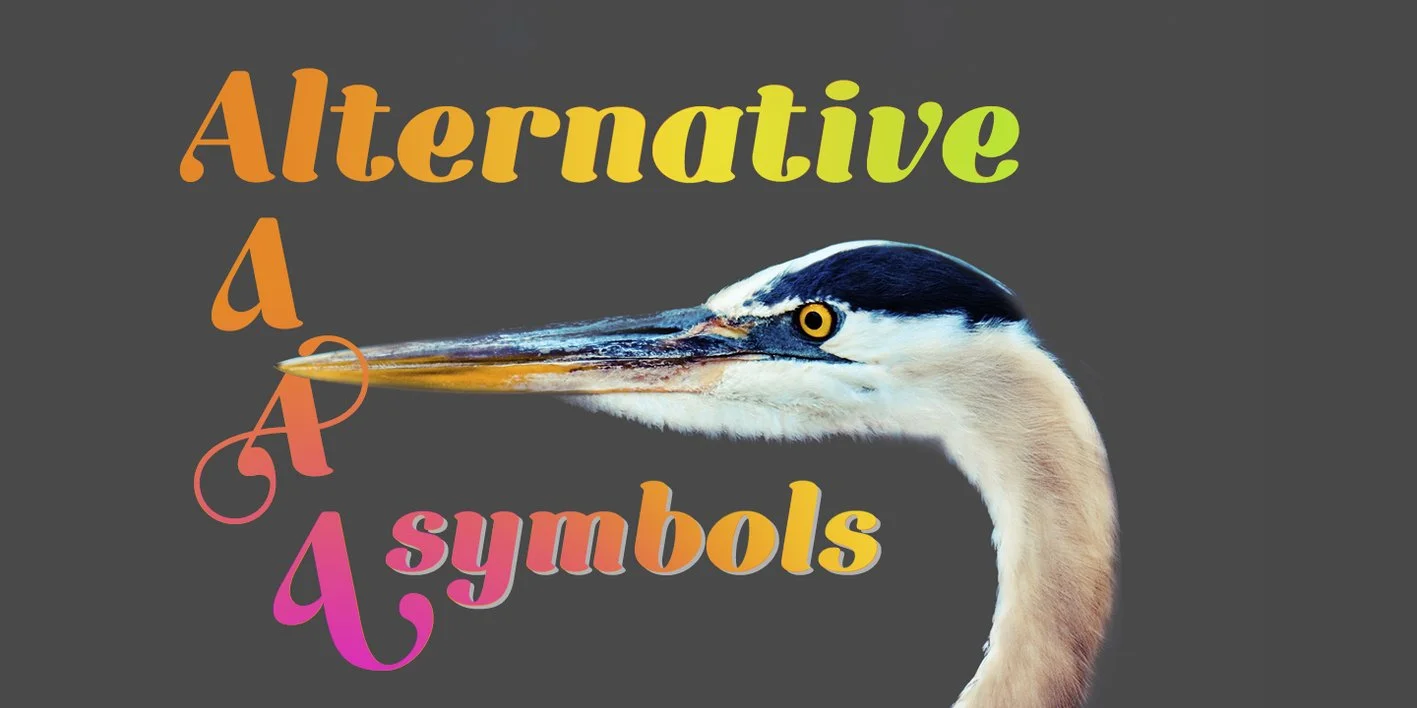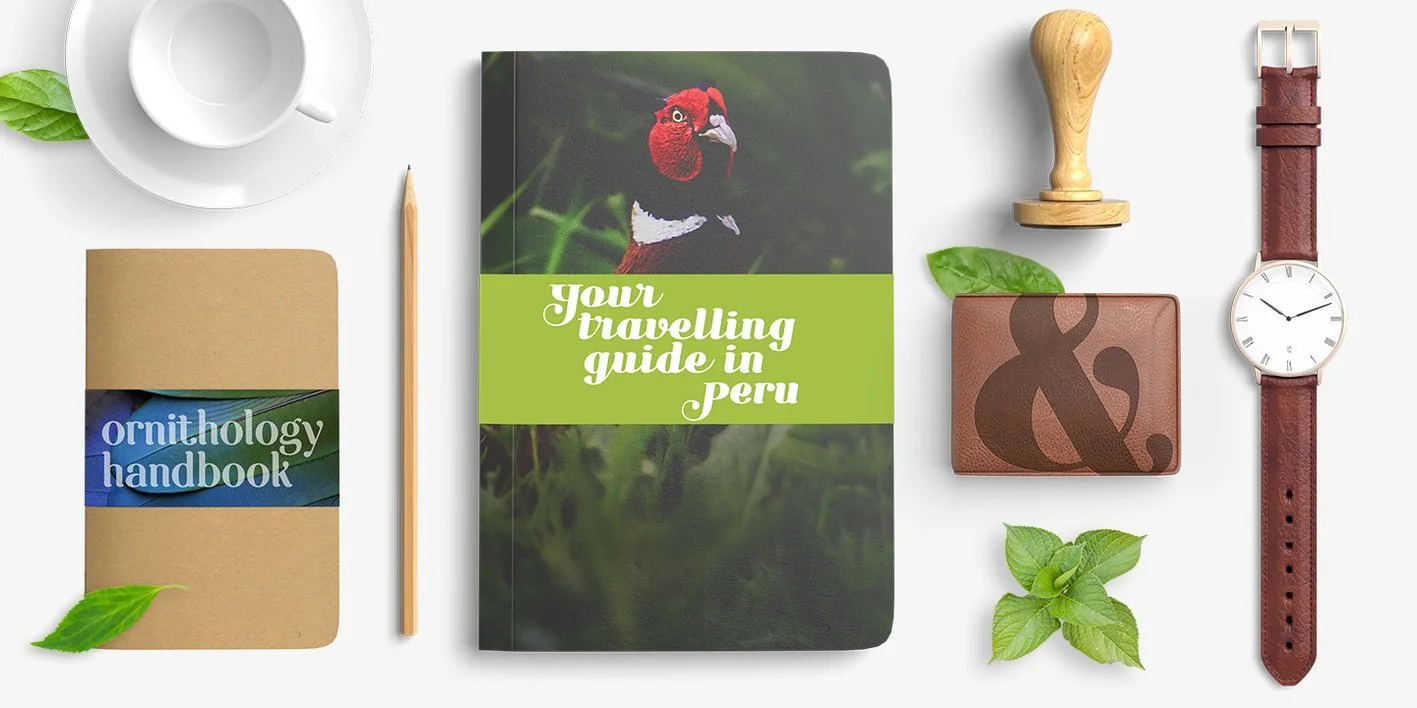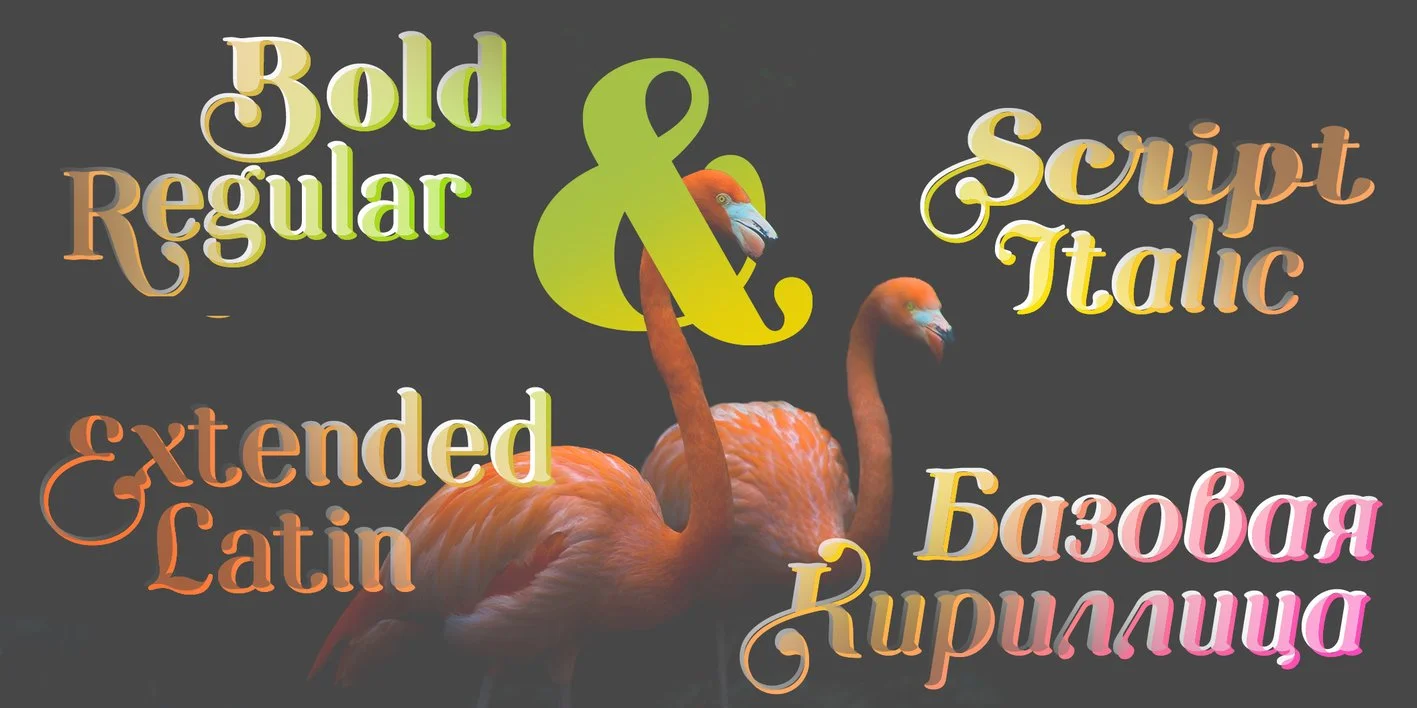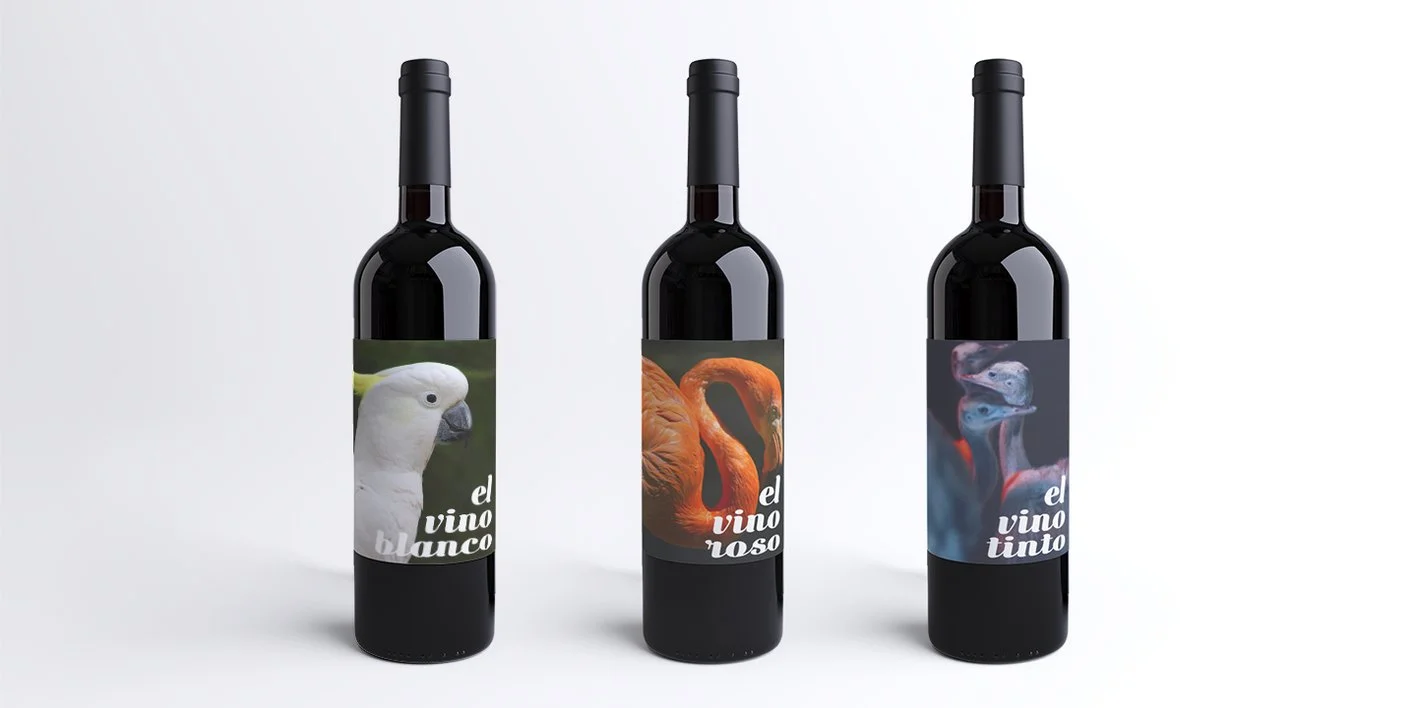
Etewut Serif Font
Etewut Serif delivers a distinctive typographic voice that adapts effortlessly across digital and print applications.
Its proportions suit a wide range of uses: website headers, printed flyers, restaurant menus, annual reports, and product packaging.
Add Etewut Serif to your toolkit and discover how it elevates everything from quick social posts to complex brand identities.